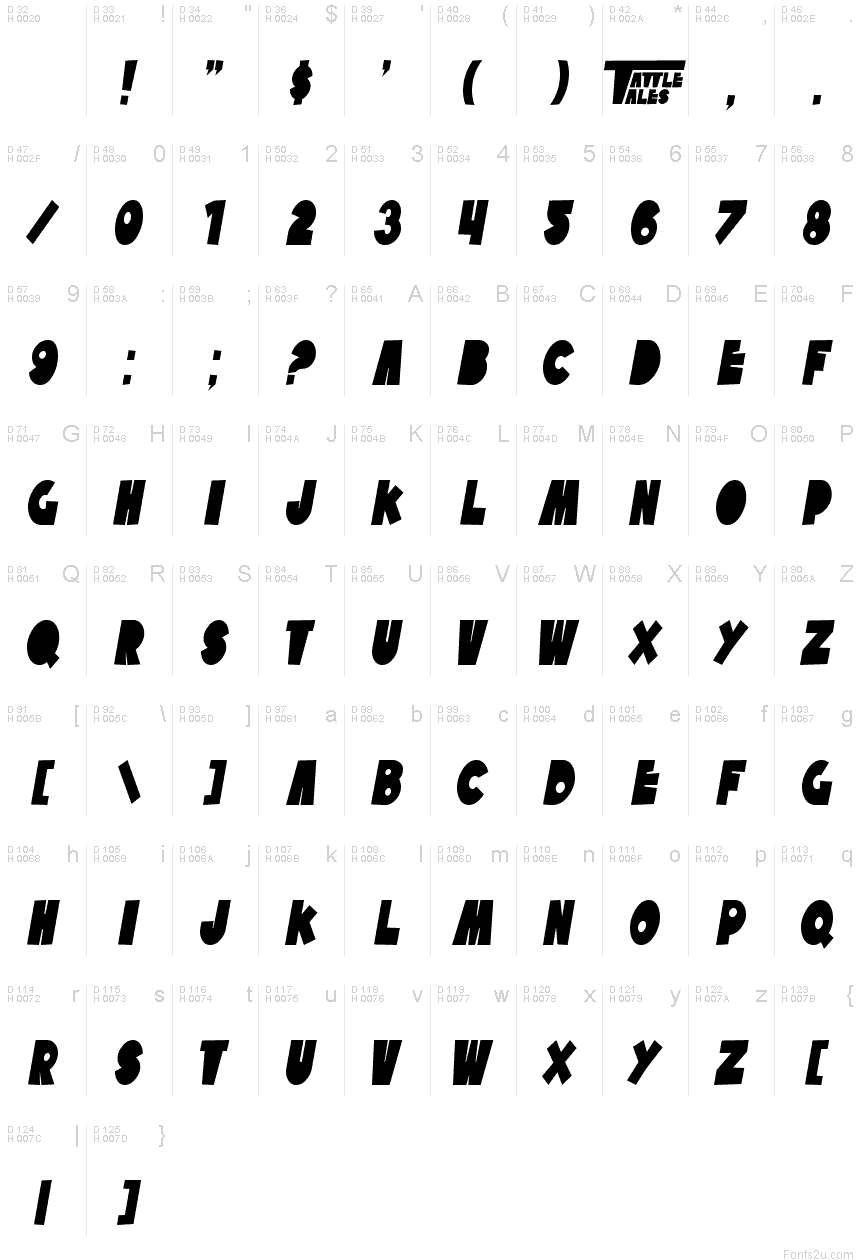
SF Tattle Tales Condensed Bold Italic by ShyWedge is a free condensed cartoon display font with hefty, forward-leaning capitals. Its uneven angles and blunt curves give the lettering a cut-paper roughness.
Designers working in youth entertainment and offbeat comedy will find its loud, slightly unruly voice useful for posters, game graphics, and merchandise. In comic panels or jagged illustrations, the chunky silhouettes can make a title part of the artwork rather than neutral lettering.